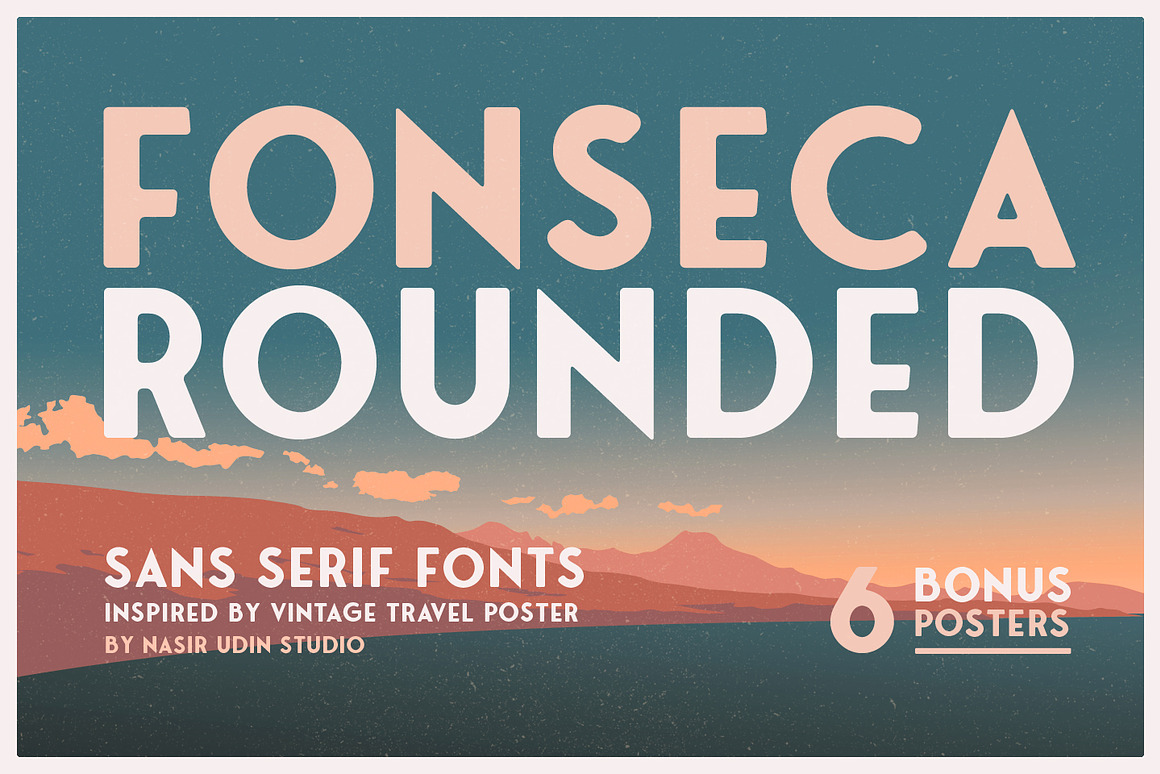
Fonseca Rounded +BONUS RETRO POSTERS
Fonseca Rounded +BONUS RETRO POSTERS Font is perfect for various design applications including vintage advertising campaigns, retro brand revival projects, nostalgic poster designs, classic diner signage, vintage clothing labels, retro music festival graphics, old-school barbershop branding, nostalgic product packaging, vintage-inspired restaurant menus, and authentic mid-century design projects. This charming typeface excels in projects requiring retro authenticity and vintage poster appeal that captures the optimistic spirit and design sophistication of America's golden advertising era.
What makes Fonseca Rounded +BONUS RETRO POSTERS Font so exciting is its perfect embodiment of vintage advertising charm and retro poster sophistication through rounded letterforms that suggest the friendly optimism and design excellence of mid-century American commercial art. The font features soft rounded construction that creates approachable vintage warmth, carefully balanced proportions that mirror classic poster design principles, and distinctive character details that evoke hand-lettered advertising signs and the craftsmanship of traditional poster artists. Its distinctive retro character and nostalgic appeal make it perfect for brands seeking to communicate heritage, quality, and the timeless charm of vintage American design and advertising excellence.
Fonseca Rounded +BONUS RETRO POSTERS Font family includes multiple vintage weights and retro variations that enhance its versatility for different nostalgic applications. Each style maintains the font's signature rounded character while providing options for various vintage design approaches. The family also features authentic retro decorative elements, vintage poster symbols, and nostalgic ornaments that can be combined with the letterforms to create cohesive mid-century design systems, plus bonus retro poster templates for complete vintage design solutions.
Whether you're developing vintage brands, retro advertising campaigns, or nostalgic communications, Fonseca Rounded +BONUS RETRO POSTERS Font Free Download provides authentic typography that transports audiences to the golden age of American advertising and celebrates the enduring appeal of vintage poster design and retro commercial art. This typeface transforms modern communications into nostalgic statements that promise authentic vintage quality and classic American charm. The font's retro appeal makes it particularly effective for heritage brands, vintage-inspired businesses, and nostalgic marketing campaigns targeting audiences who appreciate authentic vintage aesthetics and classic American design.
Fonseca Rounded +BONUS RETRO POSTERS Font stands out by delivering genuine vintage authenticity that feels connected to real mid-century advertising traditions rather than artificial retro styling. Its carefully crafted vintage proportions and authentic details ensure that designs feel genuinely connected to golden age advertising heritage and classic poster design. From vintage brand revivals to retro advertising campaigns, this font provides designers with comprehensive tools including bonus poster templates to create communications that celebrate vintage excellence and inspire appreciation for classic American design through authentic, mid-century-inspired rounded typography.